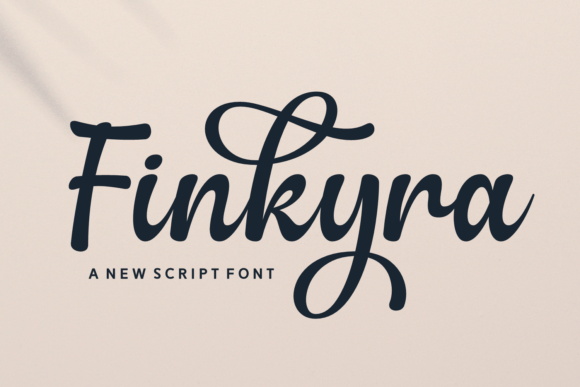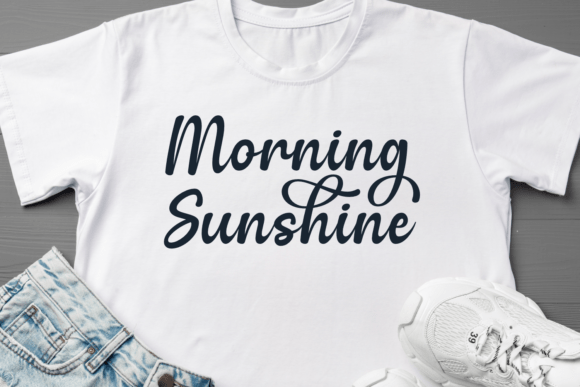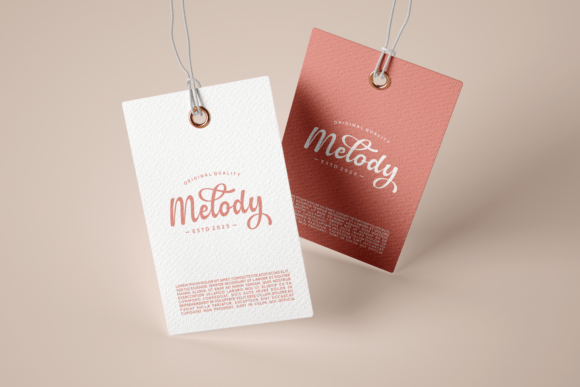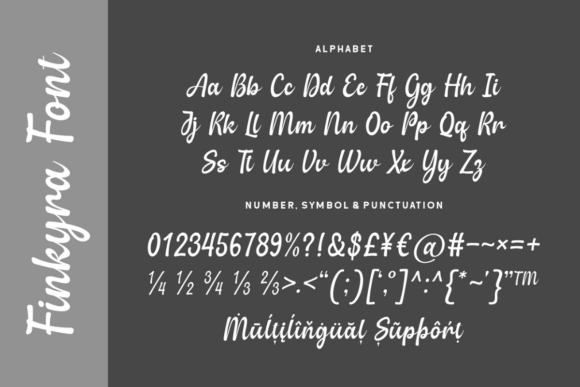
Finykra Font: Elegant Script for Signature Branding & Wedding Designs
About the Finykra Font
Step up your design game with Finykra Font, a font that exudes confidence and style. Finkyra is a sophisticated script font that blends bold elegance with smooth fluidity. Featuring flowing swashes, confident curves, and a modern calligraphic touch, Finkyra is perfect for fashion logos, signature branding, wedding stationery, and editorial titles. Its eye-catching design brings a refined personality to both upscale and creative projects.
Finkyra thrives in applications demanding high visual impact, such as headlines, logos, short-form text on packaging, and select display elements in posters or invitations. It excels in conveying luxury or sophistication. However, its elaborate forms make it unsuitable for body text or UI elements where readability is paramount; extended use would hinder legibility.
Pairing Finkyra effectively requires considering its inherent elegance. A clean sans-serif like Montserrat or a geometric sans-serif such as Futura would create a strong contrast and maintain visual clarity. For a softer contrast, consider a subtle serif like Lora to balance the script’s flourish.
Finkyra’s personality is undeniably bold and elegant, conveying a sense of refined confidence and modern sophistication. Brands associated with fashion, beauty, high-end products, or artistic endeavors would find it particularly fitting.
Finykra Font Usage Examples
Finykra Font Example